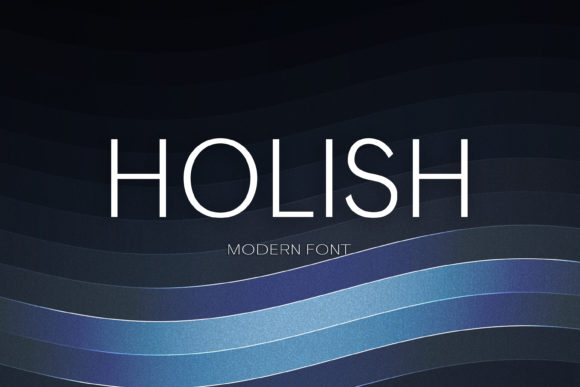
Holish Font
Introducing Holish Font - The Epitome of Modern Sans Serif Typography
In a world of digital expressions, your choice of font holds immense power to captivate, inspire, and leave a lasting impression. Meet Holish Font, a modernistic sans serif masterpiece crafted by DmDesignsStoreArt, designed to elevate your designs to new heights of elegance and sophistication. With its striking characters and unparalleled charm, Holish Font possesses the unique ability to transform ordinary words into extraordinary works of art. Let your creativity flourish as you explore the endless possibilities that Holish Font has to offer.
Holish Font: A Symphony of Style and Substance
Holish Font is more than just a collection of letters; it's an artistic expression that dances across the digital canvas. Its clean lines, sharp edges, and purposeful curves create a visual harmony that draws the eye and captivates the senses. Whether you're crafting stunning logos, captivating website designs, or eye-catching social media posts, Holish Font is your perfect companion, elevating your projects with its timeless beauty and inherent style.
The Holish Font Advantage: Discover a World of Creative Possibilities
Holish Font isn't just another font; it's an investment in your creative arsenal. Its versatility knows no bounds, seamlessly adapting to a myriad of design styles and applications. Create breathtaking posters that command attention, design business cards that leave a lasting impression, or craft enchanting invitations that set the tone for memorable occasions. The possibilities are endless, only limited by your imagination. Holish Font is the key that unlocks a treasure trove of creative expression, empowering you to turn your design dreams into tangible realities.
Embrace the Holish Font Phenomenon: Unleash Your Creative Brilliance
Holish Font is not merely a font; it's a gateway to a world of boundless creativity. Its modernistic sans serif design radiates confidence, innovation, and a touch of playfulness. As you immerse yourself in the Holish Font experience, you'll discover a font that not only enhances your designs but also ignites your imagination, propelling you to new creative heights. Let Holish Font be your muse, inspiring you to create designs that resonate with your audience, leaving them spellbound and eager for more.
Make Holish Font Your Creative Ally: Transform Your Designs Today!
Holish Font is more than just a font; it's an extension of your creative self. With its modernistic elegance, Holish Font empowers you to express your unique vision, leaving an indelible mark on the world of design. Don't settle for ordinary fonts; embrace the extraordinary with Holish Font. Download it today and embark on a creative journey that will redefine your design capabilities.